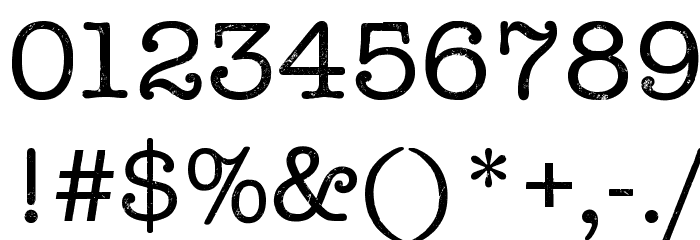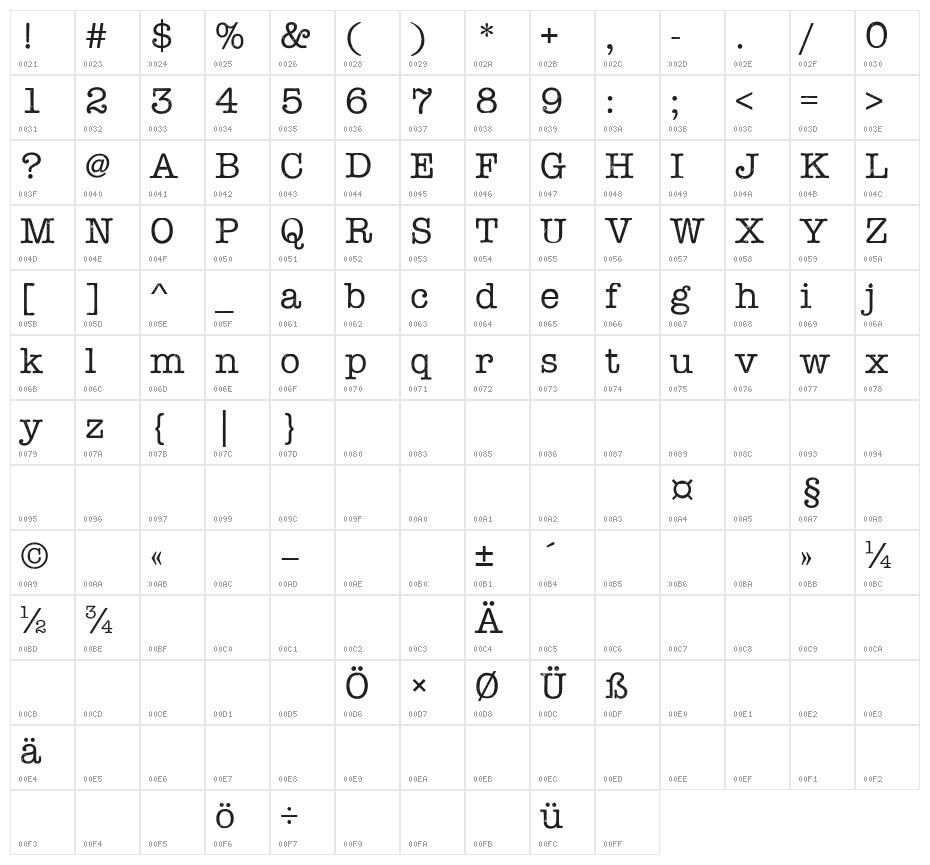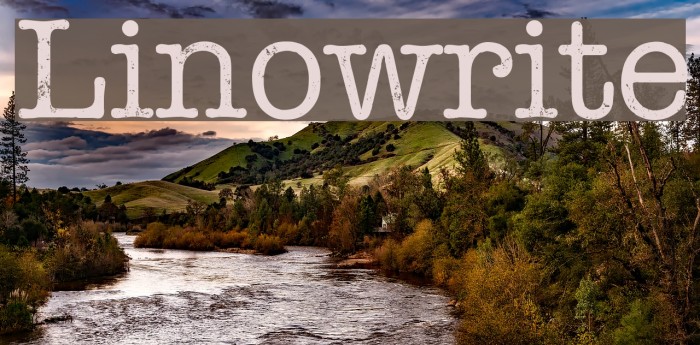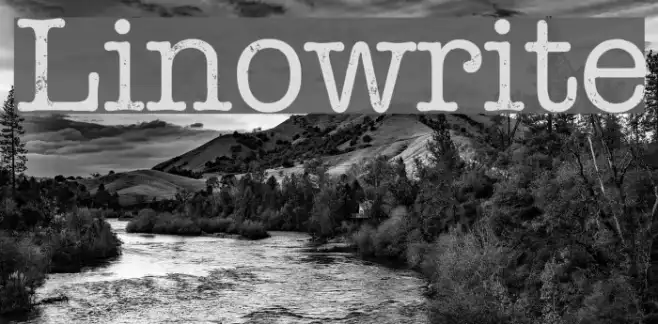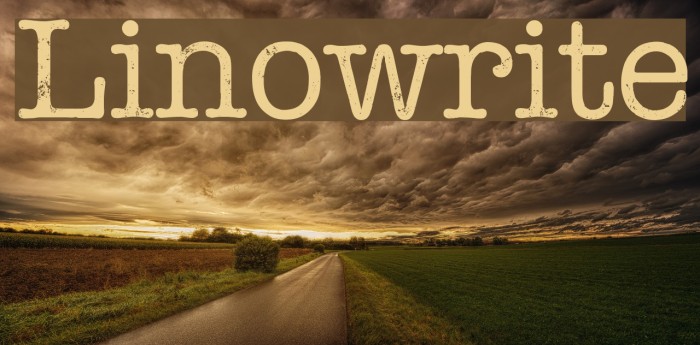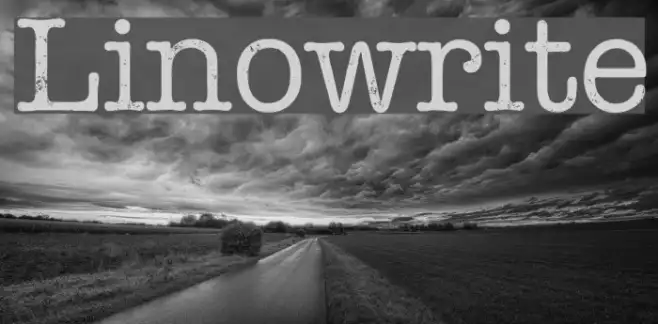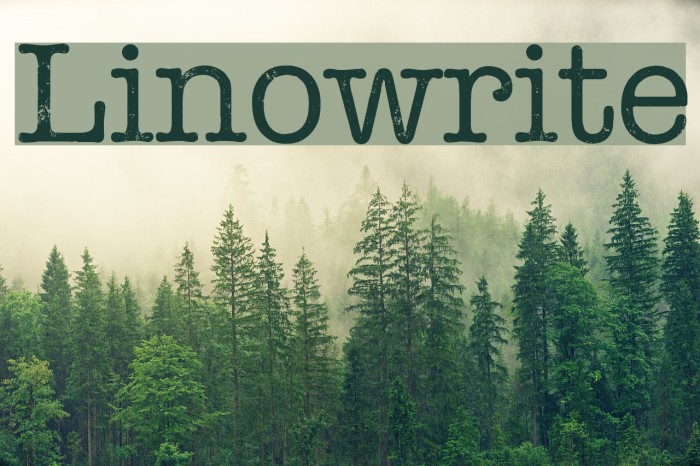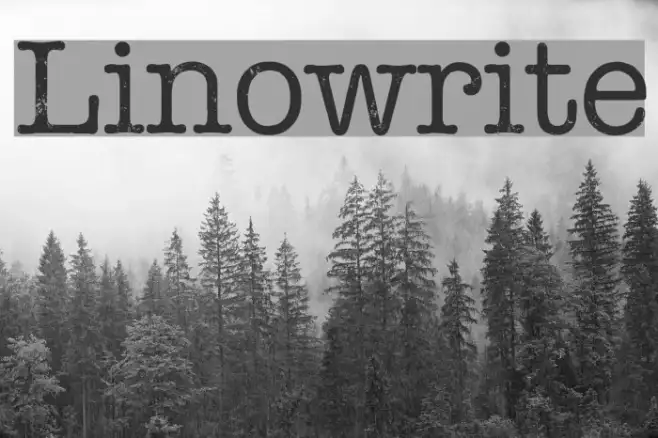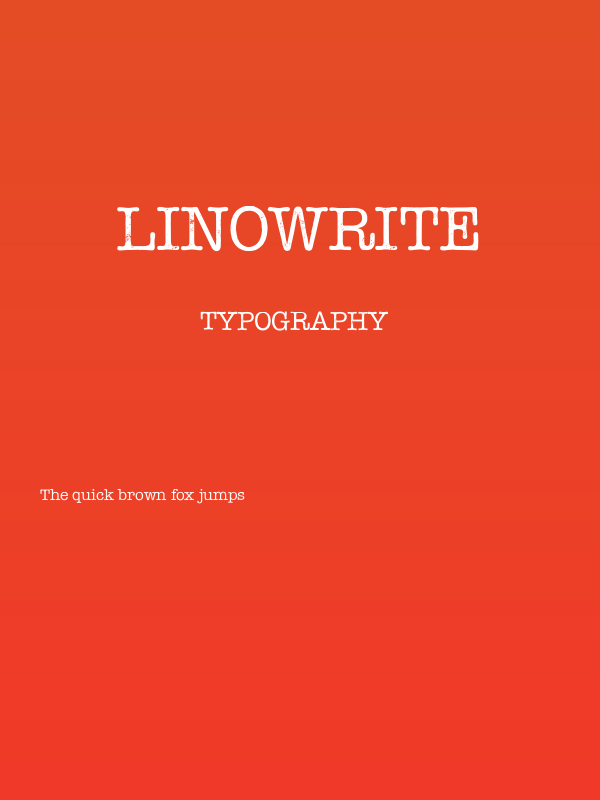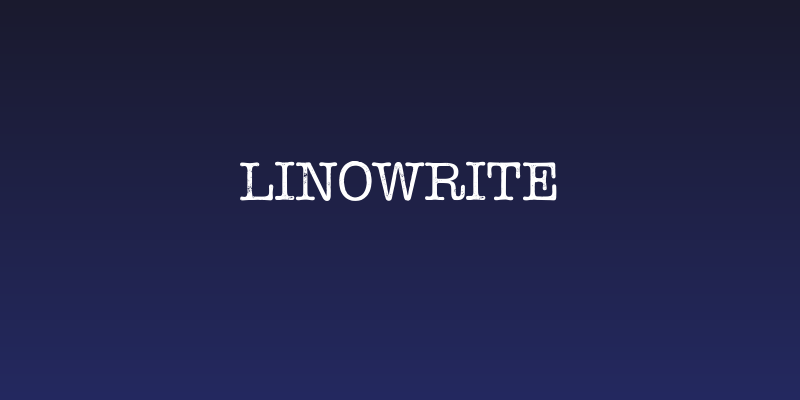
Linowrite Font
Linowrite Description
This font features a vintage typewriter style with a distinct, textured appearance that mimics the look of ink on paper. The characters are bold and have a slightly distressed look, giving them a unique, worn feel. The serifs are pronounced, adding to the classic typewriter aesthetic. Each letter and number is well-defined, with consistent spacing that maintains readability while adding character. The font's nostalgic charm makes it suitable for projects that aim to evoke a sense of history or authenticity.
| Proposed Projects | Ideal for retro-themed designs, vintage posters, book covers, and branding that requires a classic, authentic feel. |